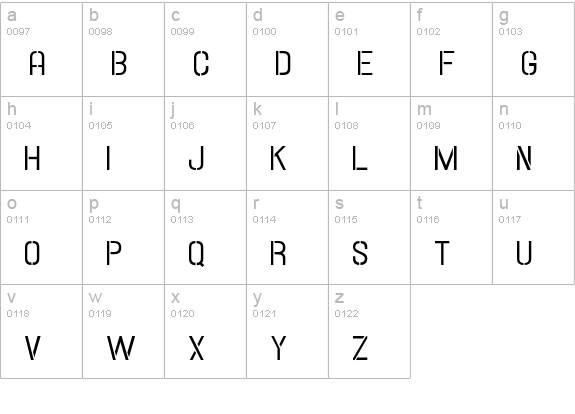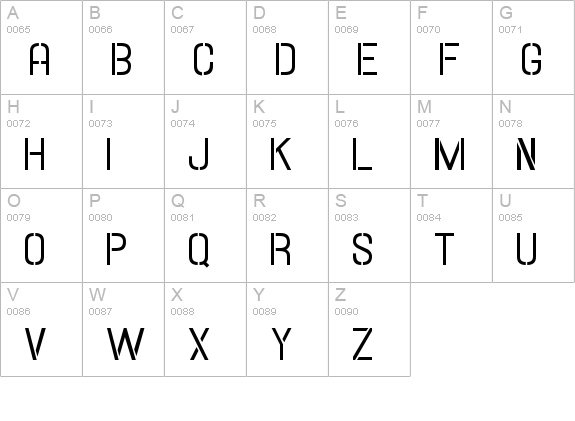
Hallandale Stencil SC JL Font Details
Hallandale Stencil SC JL font is a sleek and modern typeface that exudes elegance and sophistication. It is a perfect choice for projects that require a touch of refinement and a bold statement. With its clean lines and sharp edges, this font commands attention and makes a lasting impression. The Hallandale Stencil SC JL font is meticulously crafted to provide legibility and readability even at smaller sizes. Its stencil design adds a unique and eye-catching element to any text, making it stand out from the crowd. This font is ideal for headlines, logos, branding, and any other design that needs a strong visual impact. One of the best parts about the Hallandale Stencil SC JL font is that it is available for free. Yes, you read that right - this stunning font can be downloaded at absolutely no cost. Simply head over to FontsMarket.com and find the Hallandale Stencil SC JL font in their extensive collection of fonts. It's just a few clicks away from adding a touch of elegance and sophistication to your designs. Don't miss out on this incredible opportunity to enhance your creative projects with the Hallandale Stencil SC JL font. Download it for free today at FontsMarket.com and let your designs shine with its sleek and modern aesthetic.